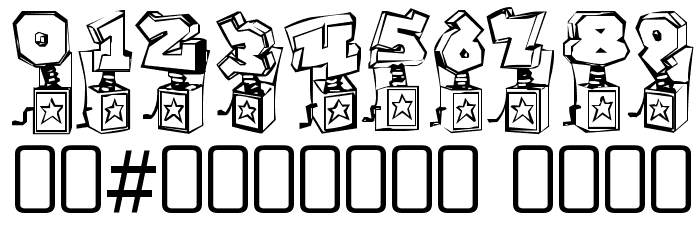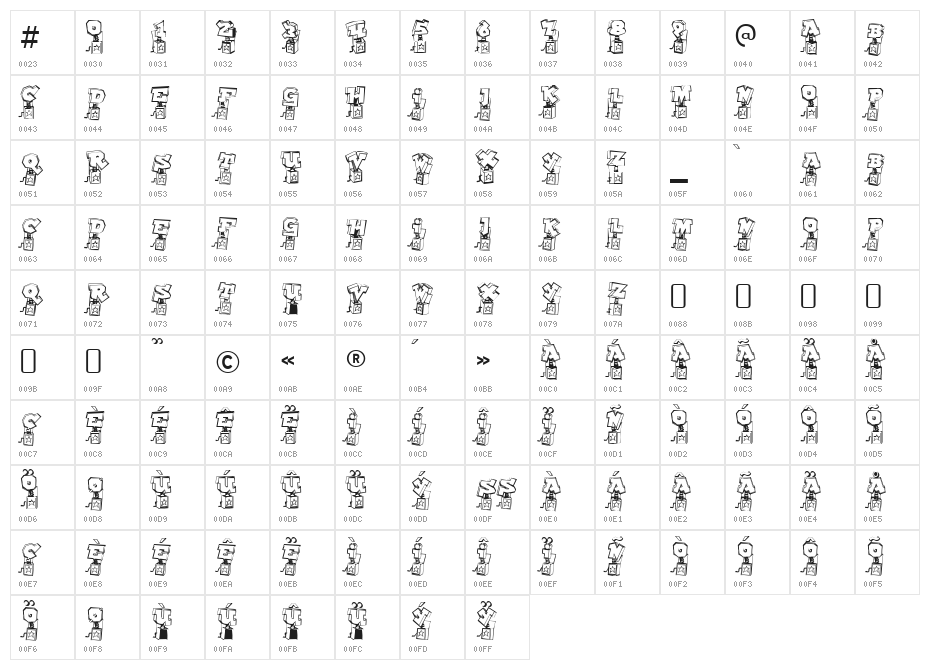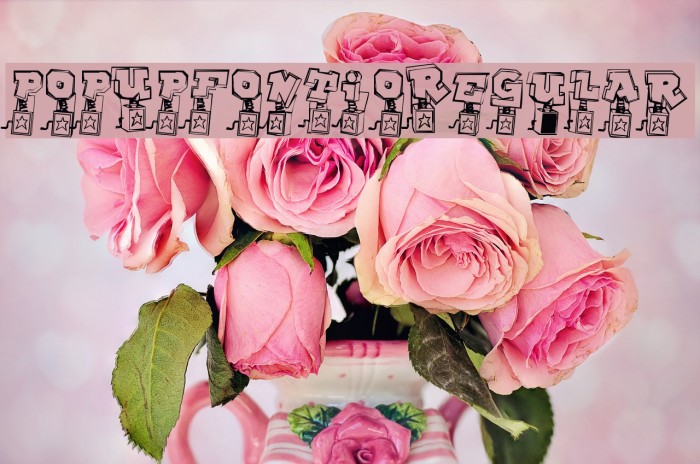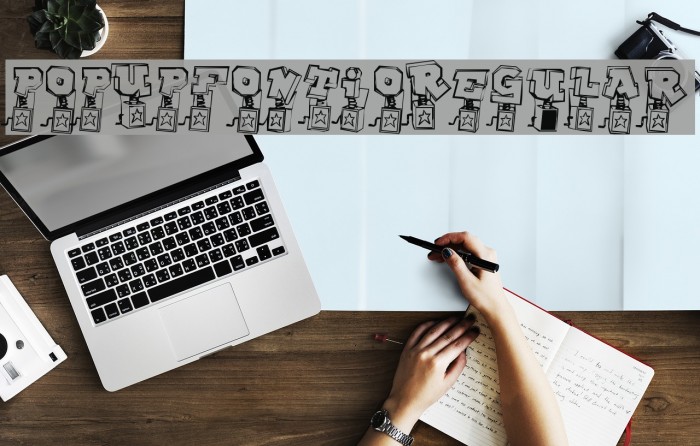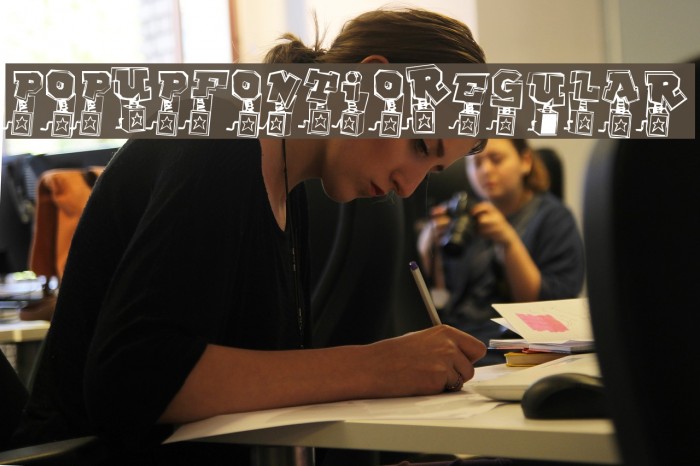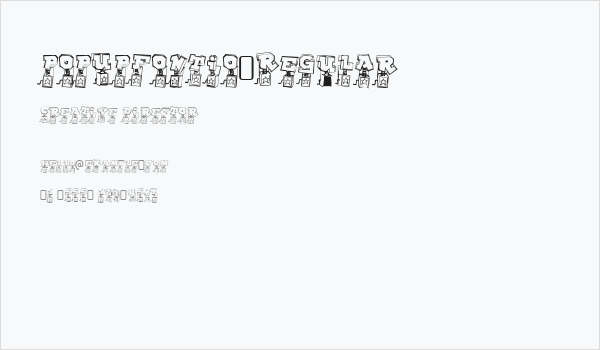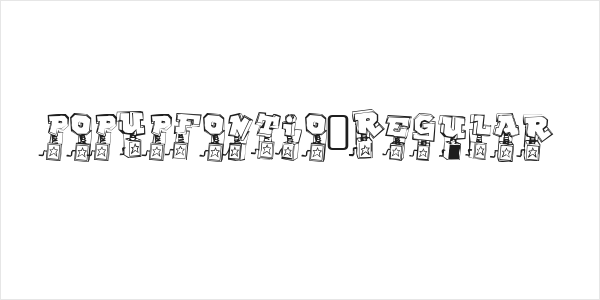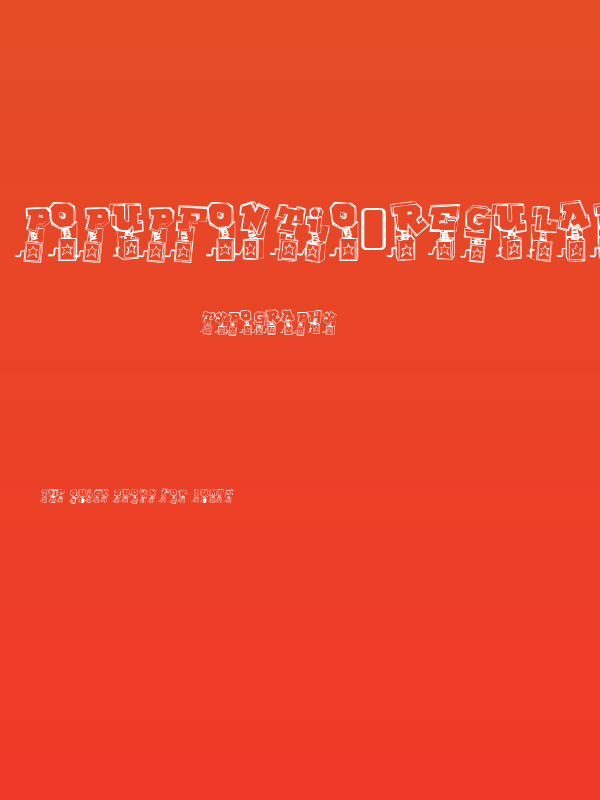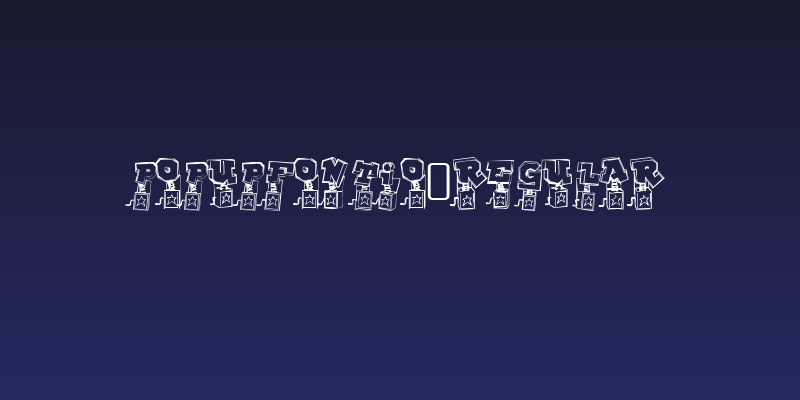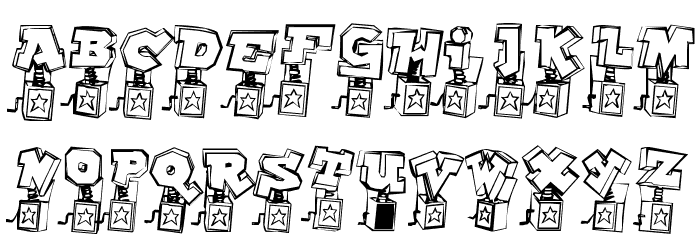
PopUpFontio-Regular Font
This font features a playful and bold design with each character appearing as if it's popping out of a box. The letters are three-dimensional, with a cartoonish style that includes a star motif on the box base. The characters are outlined with a thick black line, enhancing their visibility and giving them a comic-like appearance. The font is highly decorative, making it suitable for eye-catching designs. The uppercase and lowercase letters maintain the same playful style, while the numbers and special characters are equally dynamic and engaging.
| Proposed Projects | Ideal for children's book covers, comic strips, playful branding, and event posters. |